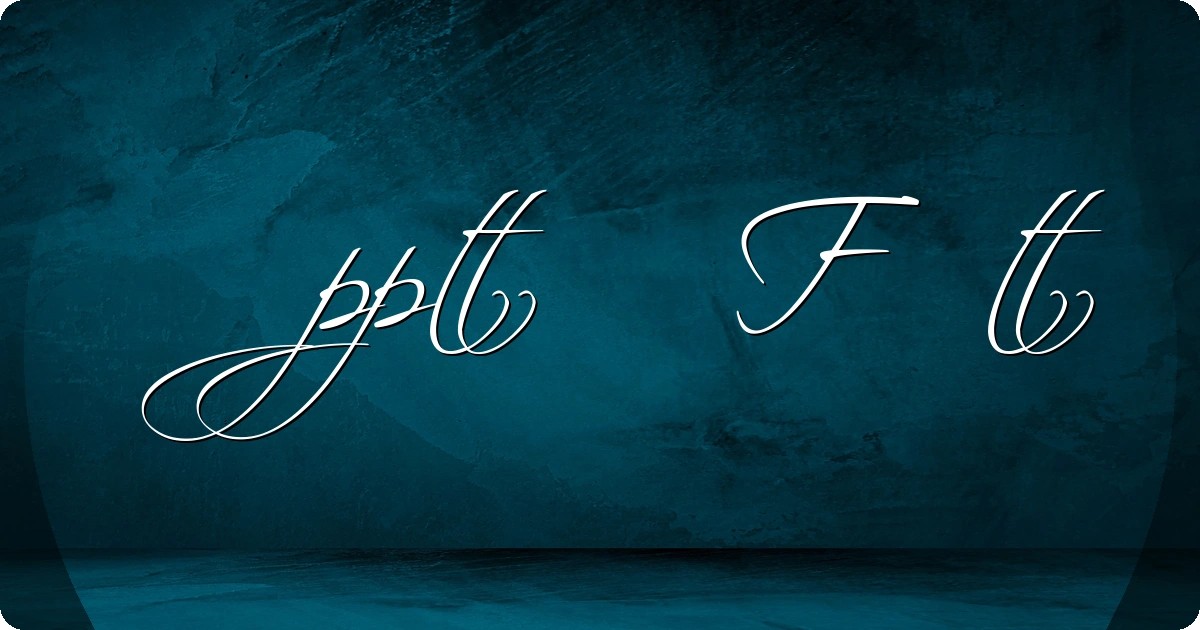
If you need a top-notch handwritten font, look no further Check out the Countryside font created by renowned font designer Billy Argel in 2018. Discover the beauty of this unique typeface and elevate your designs like never before. Don’t miss out on this opportunity to add a touch of artistry to your projects
This typeface in nature is much more classic than every other handwriting font available like the eurostile font. The appearance of this typeface is simple and it is not as complicated as the calligraphy fonts.
This typeface offers 2 different styles of this free version that are namely semi-light weight and normal width and it also contains 311 glyphs. nad this version contains all the lowercase, uppercase, and special characters.
Countryside font is available in different styles and mostly used for its copy and paste function. This free font is quite similar to the asap font.
View Of Countryside Font
As we are moving forward so before that take a look at the styling of this typeface.
| Name | Countryside Font |
| Style | Handwritten, Script |
| Designer | Billy Argel |
What Type of Font Is Countryside?
The countryside is one of the best Handwritten typefaces that was designed by Billy Argel in 2018.
Is There Any Font Similar to Countryside in Google Fonts?
The closest similar alternative in Google fonts to the Countryside is Arizonia, Rouge Script, Pacifico.